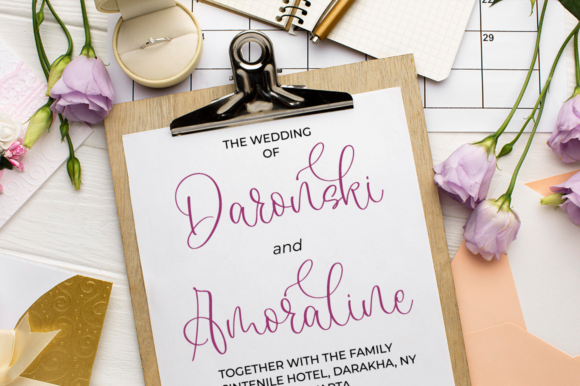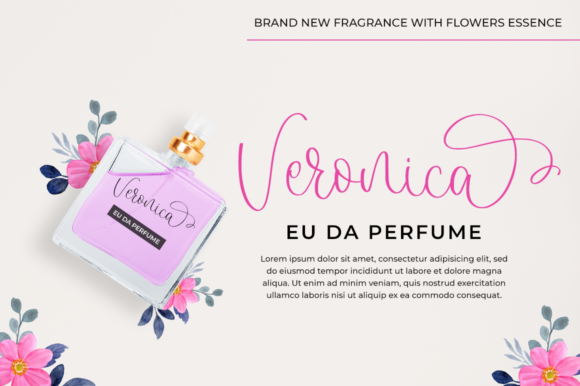
Dorceline Font
db-ku.com - Script & Handwritten -- Dorceline is a beautiful script font. Its refined style will give an elegant and modern look to any of your creative projects such as logos, branding, invitations, stationery, wedding designs, social media posts, and many more! This font is PUA encoded, which means you can access all glyphs and swashes with ease!